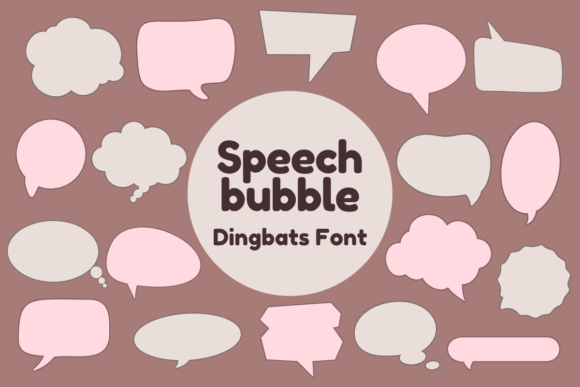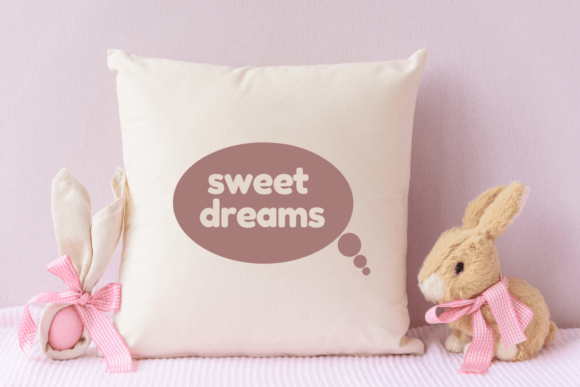
Speech Bubble Font
Speech Bubble is a fun dingbat font filled with various speech bubble designs. Each character in this font is a unique speech bubble shape that you can use in your projects. Perfect for comics, posters, and creative designs where you want to add text inside a bubble.